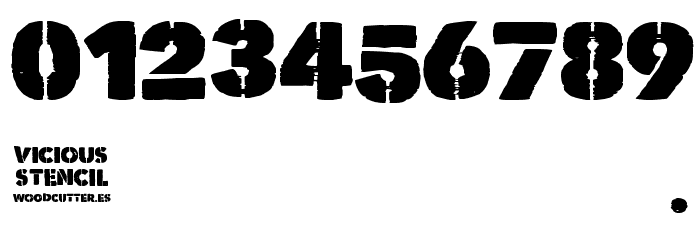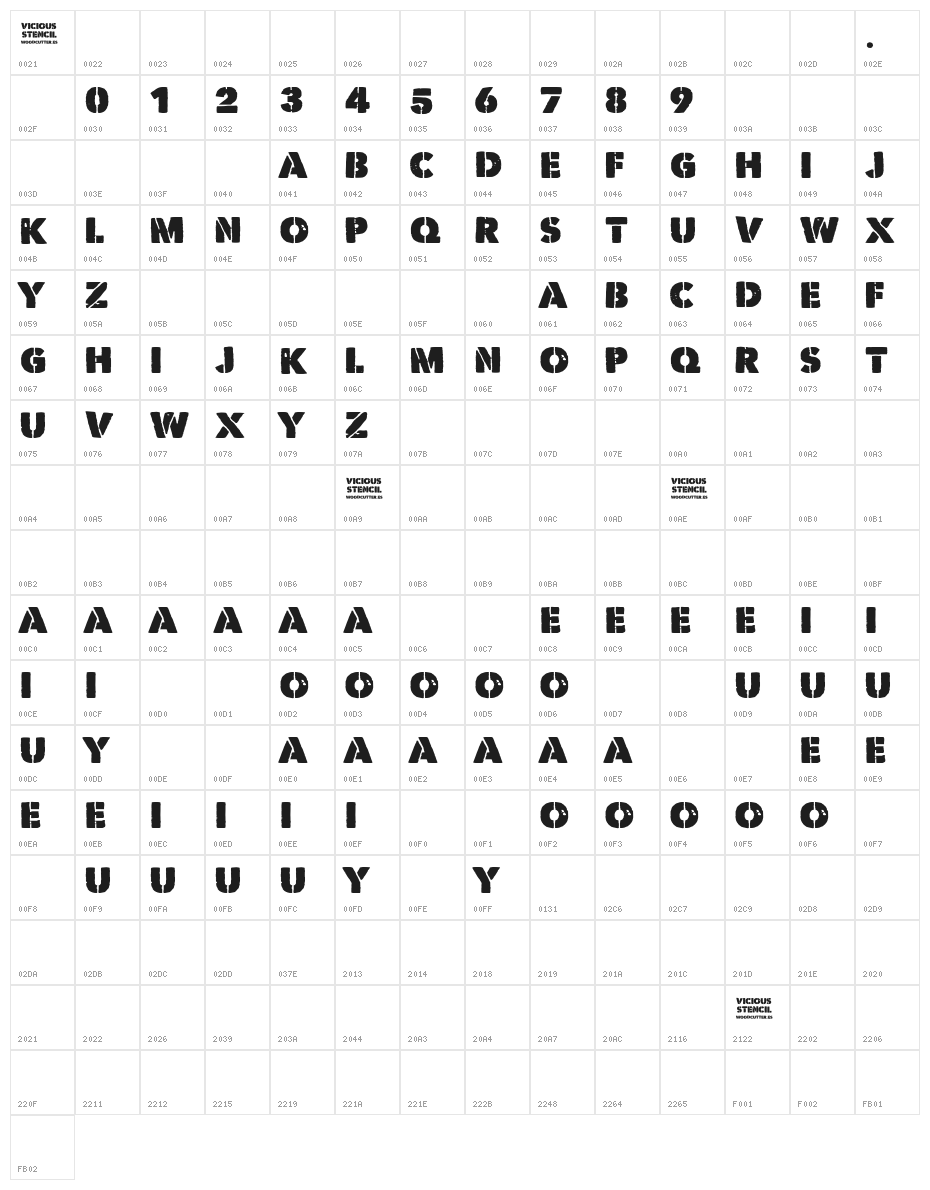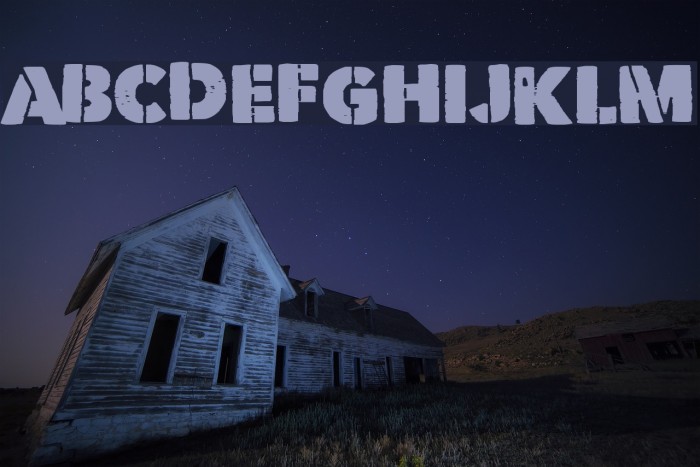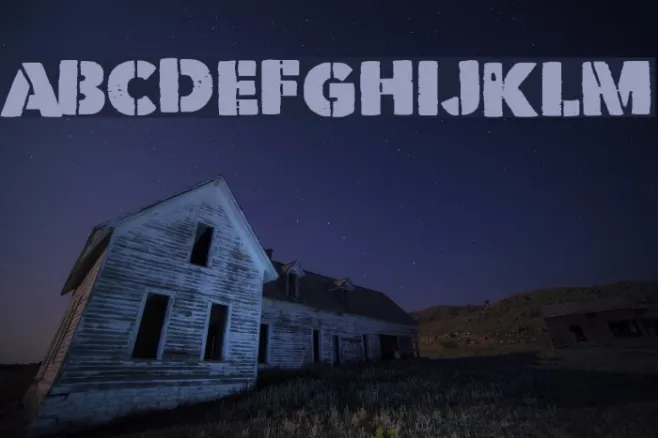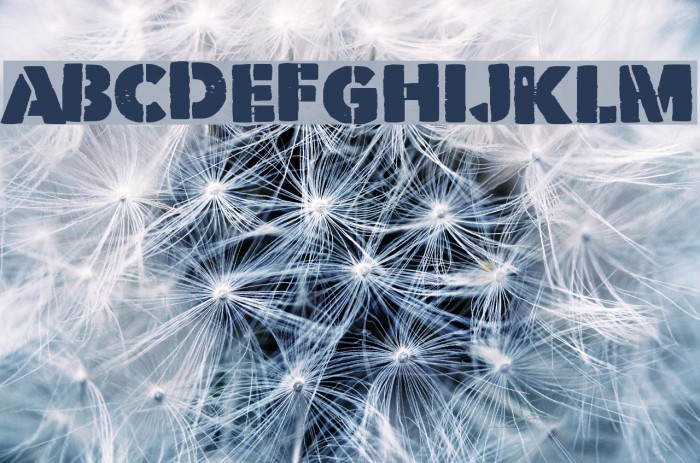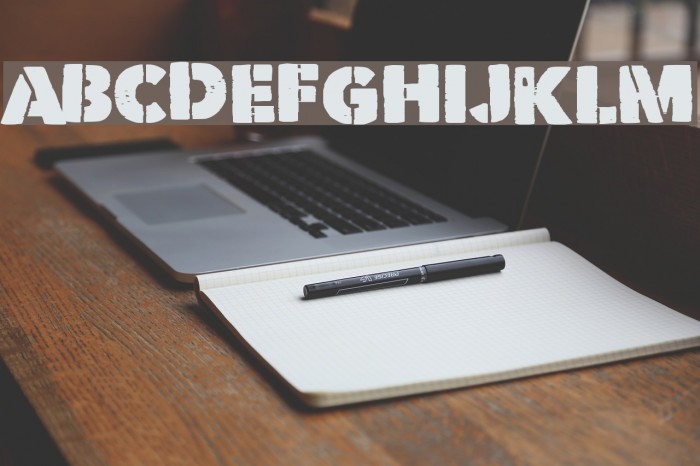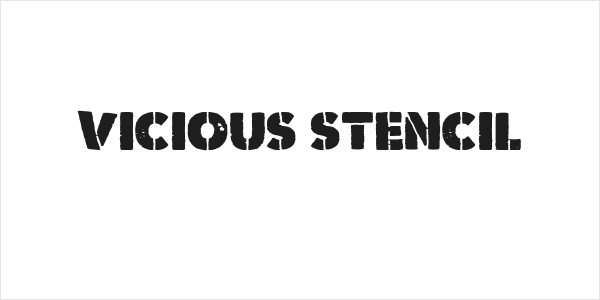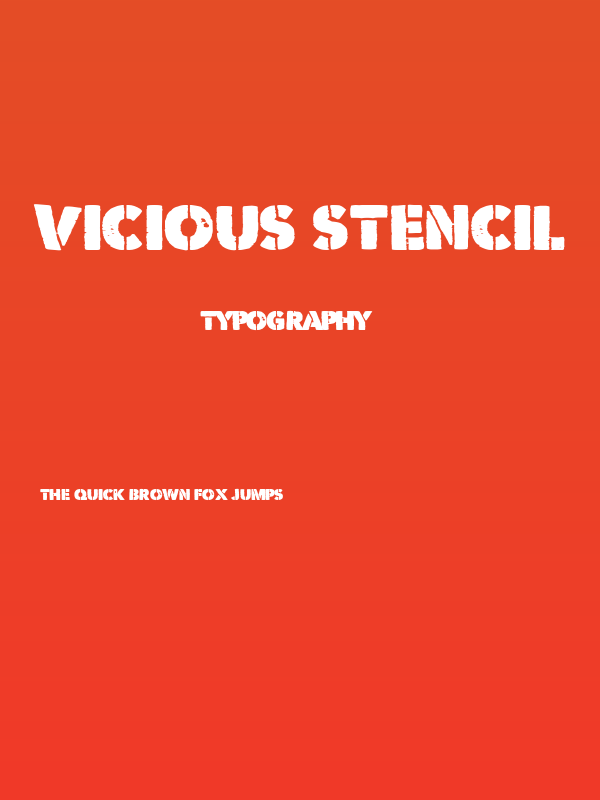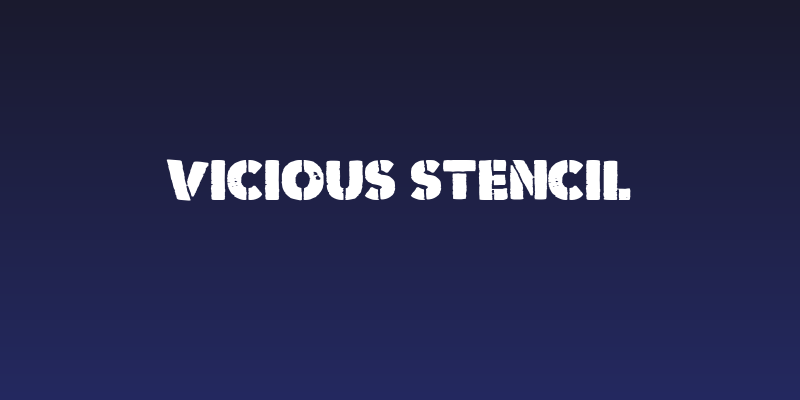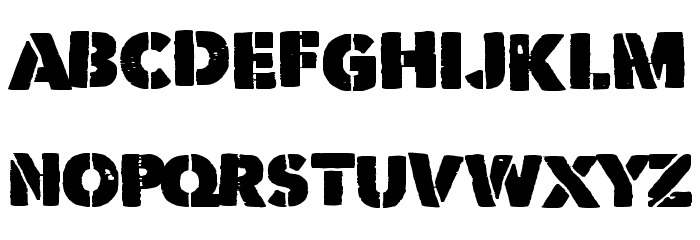
Vicious Stencil Font
Vicious Stencil Description
This font features a bold, rugged stencil design with a distressed appearance, giving it a gritty and industrial feel. The characters are thick and blocky, with intentional breaks and rough edges that mimic the look of spray-painted stencils. This style is reminiscent of urban street art and military markings, making it ideal for projects that require a strong, impactful visual statement. The uppercase letters are prominent, and the numbers follow the same bold and distressed pattern, ensuring consistency across all characters.
| Overall Style | Industrial, Urban, Edgy |
| Proposed Projects | Ideal for urban-themed designs, military-inspired graphics, posters, album covers, and branding that requires a strong, edgy look. |